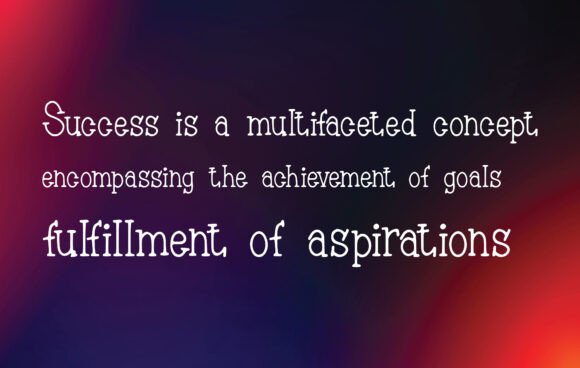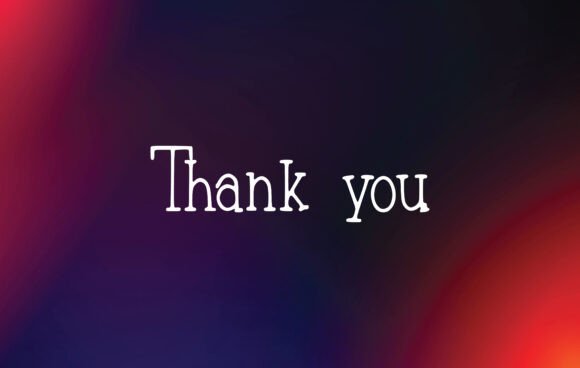
Alden Font: Elevate Your Creative Projects with this Lovely Handwritten Font
Are you looking for a font that can add a touch of elegance and sophistication to your creative projects? Look no further than the Alden Font. This beautiful handwritten font has the potential to take your ideas to the highest level, making it the perfect choice for designers, crafters, and anyone looking to create eye-catching logos, branding, and quotes.
What Makes Alden Font So Special?
Alden Font is a unique and lovely handwritten font that is designed to help you create stunning visual content. Its elegant and flowing script makes it perfect for a variety of creative projects, from logos and branding to quotes and social media graphics. With Alden Font, you can add a touch of personality and style to your designs, setting them apart from the crowd.
Key Features of Alden Font
• Handwritten Script: Alden Font features a beautiful handwritten script that is both elegant and flowing.
• Unique and Lovely: This font is designed to help you create unique and lovely designs that stand out from the crowd.
• Elegant and Sophisticated: Alden Font adds a touch of elegance and sophistication to any design, making it perfect for high-end branding and creative projects.
• Versatile: This font is versatile and can be used for a variety of creative projects, from logos and branding to quotes and social media graphics.
Why Choose Alden Font?
There are many reasons why Alden Font is the perfect choice for designers and crafters. Here are just a few:
• Easy to Read: Alden Font is easy to read, making it perfect for body text and quotes.
• Highly Legible: This font is highly legible, even at small sizes, making it perfect for use on a variety of platforms.
• Customizable: Alden Font is highly customizable, allowing you to adjust the font size, color, and style to suit your needs.
• Time-Saving: With Alden Font, you can create stunning designs in no time, saving you time and effort.
How to Use Alden Font in Your Designs
Using Alden Font in your designs is easy. Here are a few tips to get you started:
• Pair it with Other Fonts: Alden Font pairs well with other fonts, making it perfect for use in combination with other typefaces.
• Use it for Headings: This font is perfect for use in headings and titles, adding a touch of elegance and sophistication to your designs.
• Add it to Your Branding: Alden Font is perfect for use in branding, adding a touch of personality and style to your logo and marketing materials.
• Experiment with Colors: Try experimenting with different colors and font sizes to create unique and eye-catching designs.
In conclusion, Alden Font is a lovely and beautiful handwritten font that has the potential to take your creative ideas to the highest level. With its elegant and flowing script, this font is perfect for creating eye-catching logos, branding, and quotes. Whether you’re a designer, crafter, or simply looking for a font to add a touch of personality to your designs, Alden Font is the perfect choice.